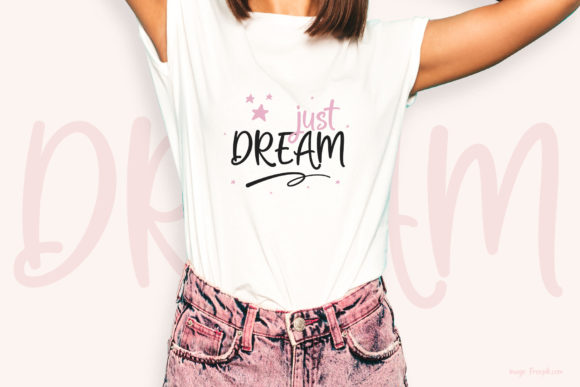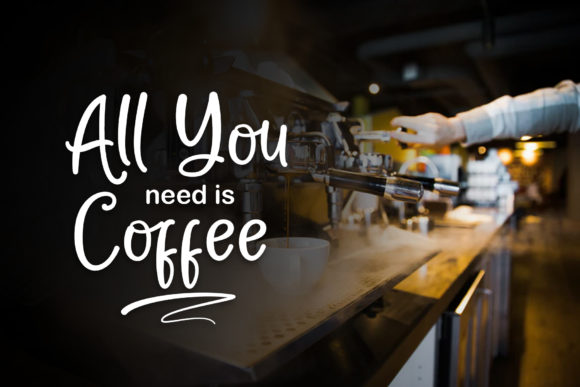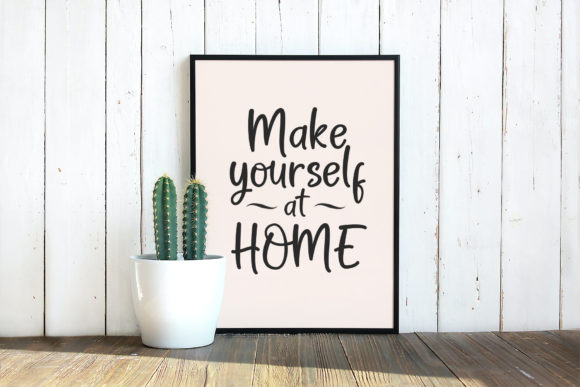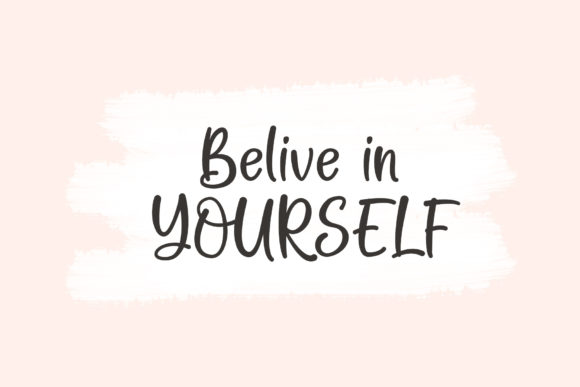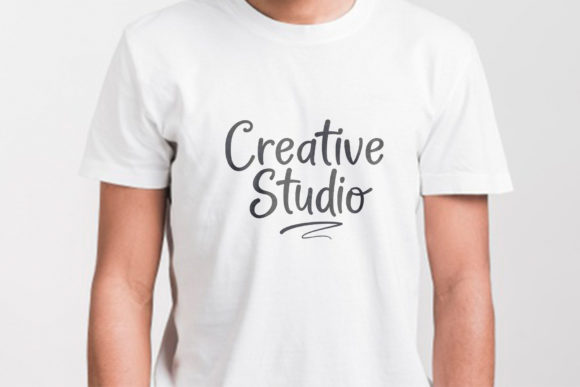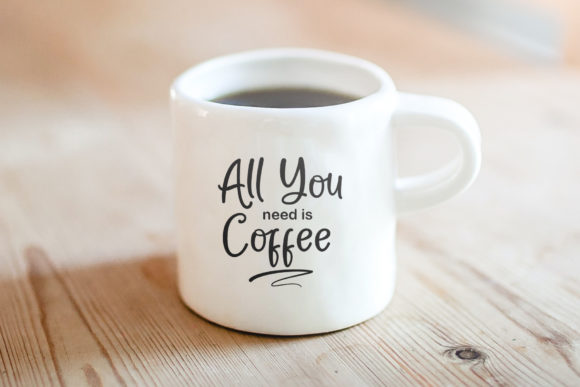
The Designer’s Delight: Cooper Rottasy Font
I still remember the frustration of working on a design project, hours spent searching for the perfect font, only to end up with something that just didn’t feel right. My client wanted a script that exuded elegance and playfulness, but everything I found seemed to lean too far in one direction or the other. That’s when I stumbled upon Cooper Rottasy, a cute handwritten font that has since become a staple in my design toolkit.
An Honest Review of Cooper Rottasy
- ✨ Gorgeous swashes and ligatures that add a touch of sophistication to any design
- ✅ Incredibly versatile, perfect for everything from Instagram posts to calligraphy scripts for DIY projects
- 💫 Unique character that sets it apart from more generic script fonts
- 🎨 Excellent for creative projects that require a personal touch
While Cooper Rottasy is an amazing font, it’s not without its quirks. For instance:
- ⚠️ Some users might find the font a bit too ornate for very simple designs or body text
- 🤔 It can be a bit tricky to pair with other fonts, so some experimentation may be required
The Story Behind Cooper Rottasy
While the exact origins of Cooper Rottasy are shrouded in mystery, it’s clear that this font was designed with love and a deep understanding of what makes a script truly special. The creator’s inspiration likely came from a mix of traditional calligraphy and modern digital design, resulting in a font that’s both timeless and fresh.
| Font Name | Cooper Rottasy Font |
| Author | Beautypes |
Q: Is Cooper Rottasy suitable for body text?
A: While it’s primarily designed for headings and titles, Cooper Rottasy can be used for short paragraphs of body text. However, its ornate nature might make it less readable for longer texts.
Q: Does Cooper Rottasy support OpenType features?
A: Yes, Cooper Rottasy supports OpenType features, including swashes and ligatures, which can be accessed in compatible software like Adobe Photoshop and Illustrator.